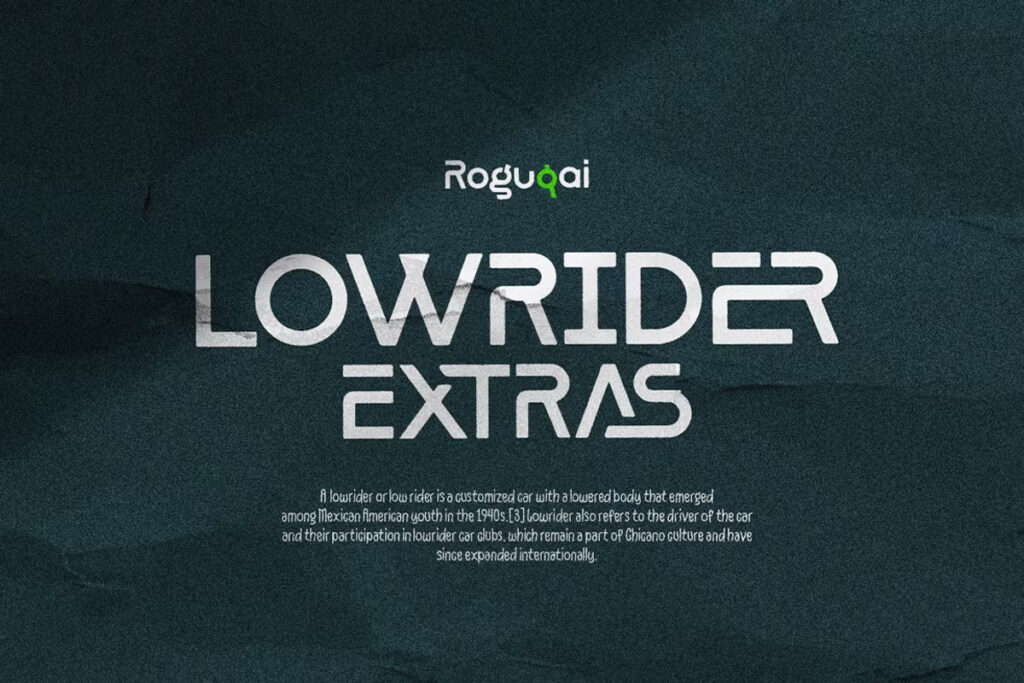
Roguqai Font
Roguqai is a modern sans-serif font that blends creative versatility with a sense of professionalism. With its rounded corners and smooth edges, it offers a friendly yet polished look, making it a great choice for a variety of design needs. Whether you’re working on logotypes, headers, or branding materials, Roguqai delivers a clean, contemporary aesthetic that will capture attention and convey your message effectively.
Roguqai is designed with both uppercase and lowercase characters, ensuring flexibility and legibility in different contexts. Its modern appeal, paired with a warm, approachable vibe, makes it an excellent option for creative projects that require both innovation and clear communication.
Roguqai Sans Serif Font